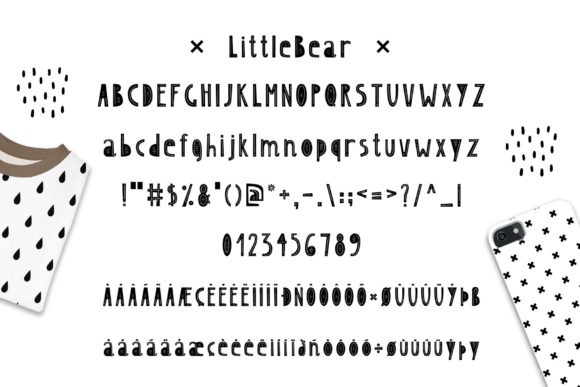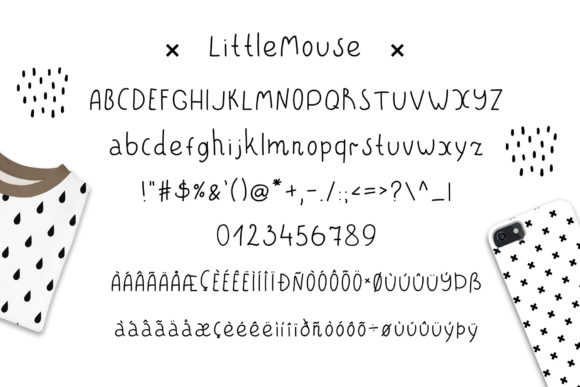
Introduction to Little Bear & Little Mouse Duo Font
The Little Bear & Little Mouse is an amazing font duo.
Both have a fun and playful feel and can be combined perfectly, but are also amazing as strong stand-alones Allowing you to create multiple unique designs in an instant.
Key Features of Little Bear & Little Mouse Duo Font
Why Choose Little Bear & Little Mouse Duo Font?
Little Bear & Little Mouse Duo Font offers exceptional quality and versatility, making it a valuable addition to your design toolkit. Whether you’re creating for personal projects or commercial use, Little Bear & Little Mouse Duo Font delivers professional results.